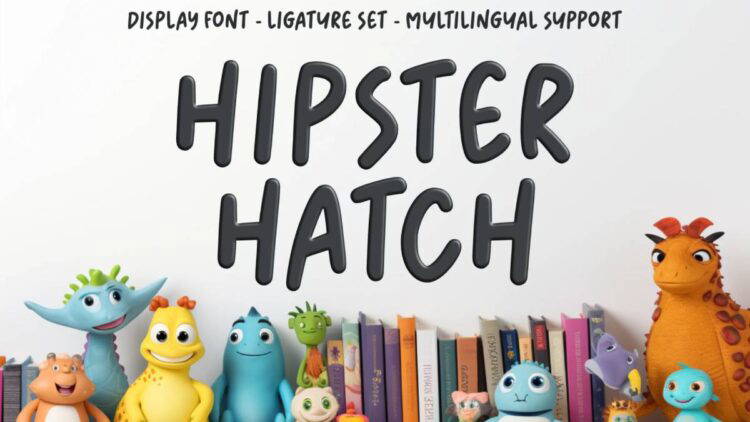
Hipster fonts are charming in their own way as they bring together nostalgia and modern design easily making them unique. Hipster fonts give designers a sense of legitimacy, style and originality and they are the perfect choice when someone wishes to step outside the box.
Be it branding, posters, social media designs or even packaging, hipster fonts would add a splash of retro and modern flair to your design projects.
As regards to this blog, we have prepared a collection of the best hipster fonts so that next time you wish to help embrace your creativity you have an ideal type face at your disposal.
Where Can You Use the Best Hipster Fonts?
As mentioned.few words above , the best hipster fonts come in handy in many different projects because these fonts combine an ‘old fashioned ‘ feel with a modern touch . That said, its possible to incorporate them in different spheres, here’s a few of them.
Branding and Logos: When wanting to create a logo that screams unique and creative, especially for an artisanal brand or startup, hipster fonts are used to make logos attractive yet bold for a cafe or a clothing line.
Posters and Flyers: Among other things, because of their ‘retro’ look, these type of fonts can be incorporated in event posters or even in advertisement of a music festival’s logo even in designs that need an element of trendiness and pureness.
Social Media Graphics: If you want to promote your brands identity through compelling posts on platforms such as Pinterest and Instagram, hipser fonts can help you achieve this.
Packaging and Labels: To add a more ‘handmade- like’ feel to labels of petro- beer, organic foods or boutique like cosmetics hipster fonts can be of great help.
Invitations and Cards: If you wish to make wedding invites, cards for parties or cards for thanking someone, these fonts can help your card stand out from the rest.
Merchandise and Apparel Design: For a more modern audience, hipster fonts can give your t-shirts and tote bags a ‘trendy’ touch.
Be it in print or digital form, hipster fonts can easily transform any ordinary project into something more captivating and unique.
1.Hipsterism Display Font
Hipsterism is an edgy and multipurpose typeface that has a distinct character which adds value to all your design projects. Such fonts alone can transform any work, but Hipsterism offers much more than its distinct look through OpenType options; stylistic alternates, stylistic sets, and ligatures. Try using them as logotypes, posters, badges, book covers, t shirt graphics, packaging and other objects.
2. Street Hipster Graffiti Font
Our newest creation, the Street Hipster Graffiti Font, is now available. It is ideal for designs that want to leave a playful yet bold impression. It fuses the graffiti art well and maintains the vibrant essence alive, talk about being all round perfect and versatile. It is suitable for the widest gaps possible including kid’s posters, music-project flyers, novels, cartoons and comics and the list goes on!
3. Citrogen – Wide Hipster Font
Citrogen Hipster Font is a strong and multi-purpose font which aims to leave a mark on the viewer. With its modern look, Citrogen is ideal for open air campaigns such as posters, branding and packaging. It is Services’ stunnin experiencing that threw out atheistic spell because of the firm and elegant appearance it provides to the contemporary concept. This font the body’s strength that makes sure that the message drawn is clear, the visualization is modern and elegant.
4. Mister Hipster – Fun Handwritten Font
Mister Hipster Font is a beautiful font that appears as though it was hand-written. It adds fun to any project and is full of charm and style. If you are looking to create something interesting such as a printed quote, party invitation or even different types of packaging, this font performs great with sleek and thin lines. It is important to note that Designer fonts such as these are great for adding a playful design to a project whether it’s a logo, social media graphics, headings or even a menu.
5. Artzopo Font
Artzopo Font is an artistic font created in a professional manner and features an OpenType which is ideal for improving the quality of your design projects. This font is always helpful whether it is on logos, quotes, t-shirts or posters. It is provided both in capital and small letters, numbers and also gives Speech Marks so it is a suitable for all your creative works.
6. Kahuripan Font
Kahuripan Font is a perfect font to spice up your designs! It has a bold, clean, and vintage look which is great for display and heading text. Due to its outstanding appeal, Kahuripan is suitable for use in logos, advertising, music brands, clothing, tags, signs, etc.
Funky Hipster Font also has two uniquely styled variations and a two-dimensional vintage look which make it a versatile tool for every designer. In particular, for music, funky branding, crazy visuals this font will emphasize your ideas with its cheerful personality and originality while still ensuring everything flows together seamlessly.